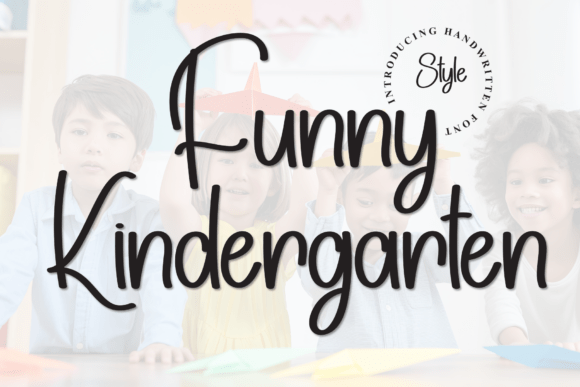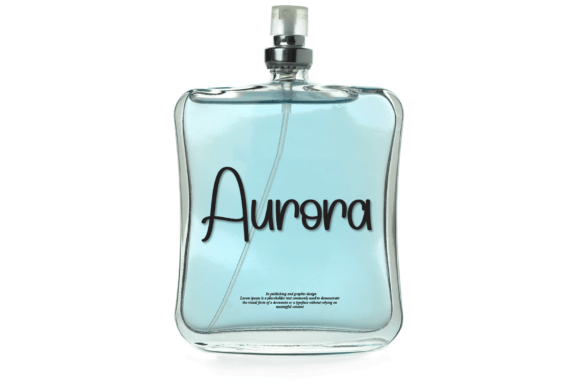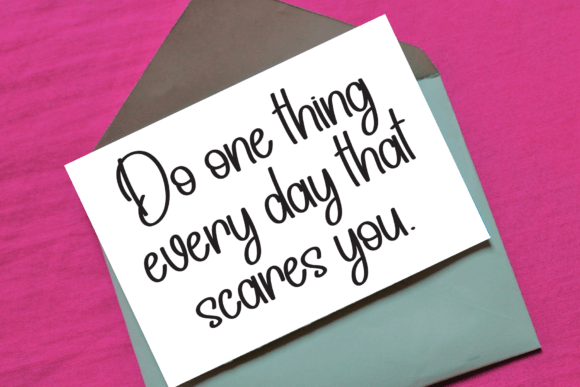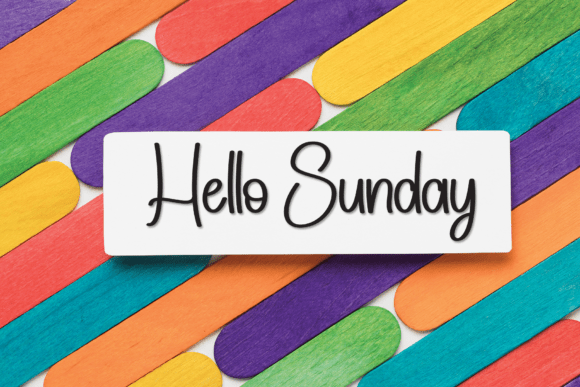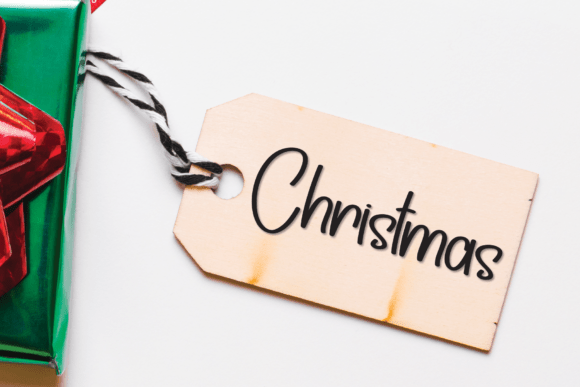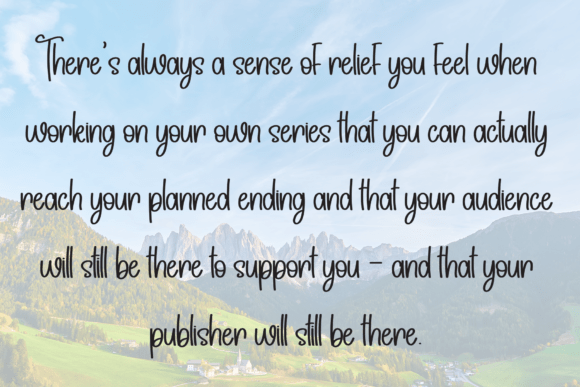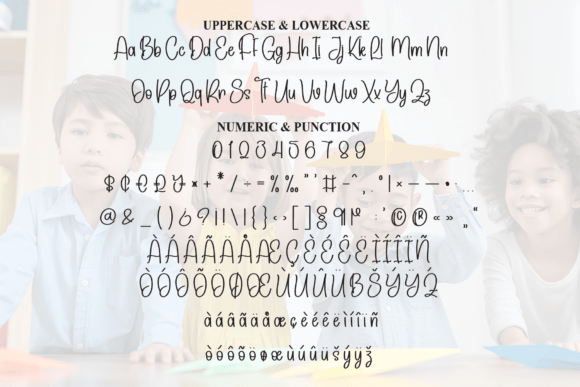
Adding a Pinch of Whimsy to Your Designs
Who among us hasn’t been charmed by the imperfect, handmade quality of a child’s artwork? The way a wobbly line or an extra-large ‘x’ can bring a smile to our face, reminding us of a simpler time. As designers, we strive to capture that same essence of joy and playfulness in our work, and that’s where the Funny Kindergarten Font comes in.
This delightful, handwritten font is designed to add a sprinkle of magic to your designs. Whether you’re crafting enchanting wedding invitations or heartwarming cards, the Funny Kindergarten Font is the perfect fit. Its engaging and fun aesthetic is sure to bring a dash of amusement to any design requiring a delightful touch.
As a designer, you’ll appreciate the value of this unique font in adding character to your work. With its charm and friendliness, the Funny Kindergarten Font is a valuable addition to any design toolkit, allowing you to infuse your creations with a pinch of whimsy and a whole lot of personality.
Funny Kindergarten Font Key Features
- Unique Characteristics: The font features playful, whimsical letters with rounded edges and exaggerated shapes, making it perfect for creating a fun and engaging atmosphere in kindergarten settings.
Designer Review: Funny Kindergarten Font
Overall, I’d say the Funny Kindergarten Font is a quirky and charming addition to any project. ✨ It’s perfect for creating a whimsical and playful atmosphere, especially in educational or children’s content.
The font’s unique design and character set make it stand out from more traditional fonts. ✨ The bold and colorful style is sure to grab attention and add a sense of fun to any text. ✨ I also appreciate the variety of font weights and styles available, which gives designers a lot of flexibility when working with the font.
- ⚠️ The font may be too playful for certain projects, such as formal or professional content.
- ⚠️ The font’s bold style can sometimes make text difficult to read, especially at smaller font sizes.
Overall, I’d recommend the Funny Kindergarten Font for projects that require a lighthearted and playful tone. Just be sure to use it judiciously and consider the potential limitations. With the right project, this font can be a real showstopper!
Here are a few tips to help you get the most out of the Funny Kindergarten Font:
- Use it for playful and whimsical designs.
- Pair it with bright and bold colors to create a fun and energetic atmosphere.
The Funny Kindergarten Font is perfect for: